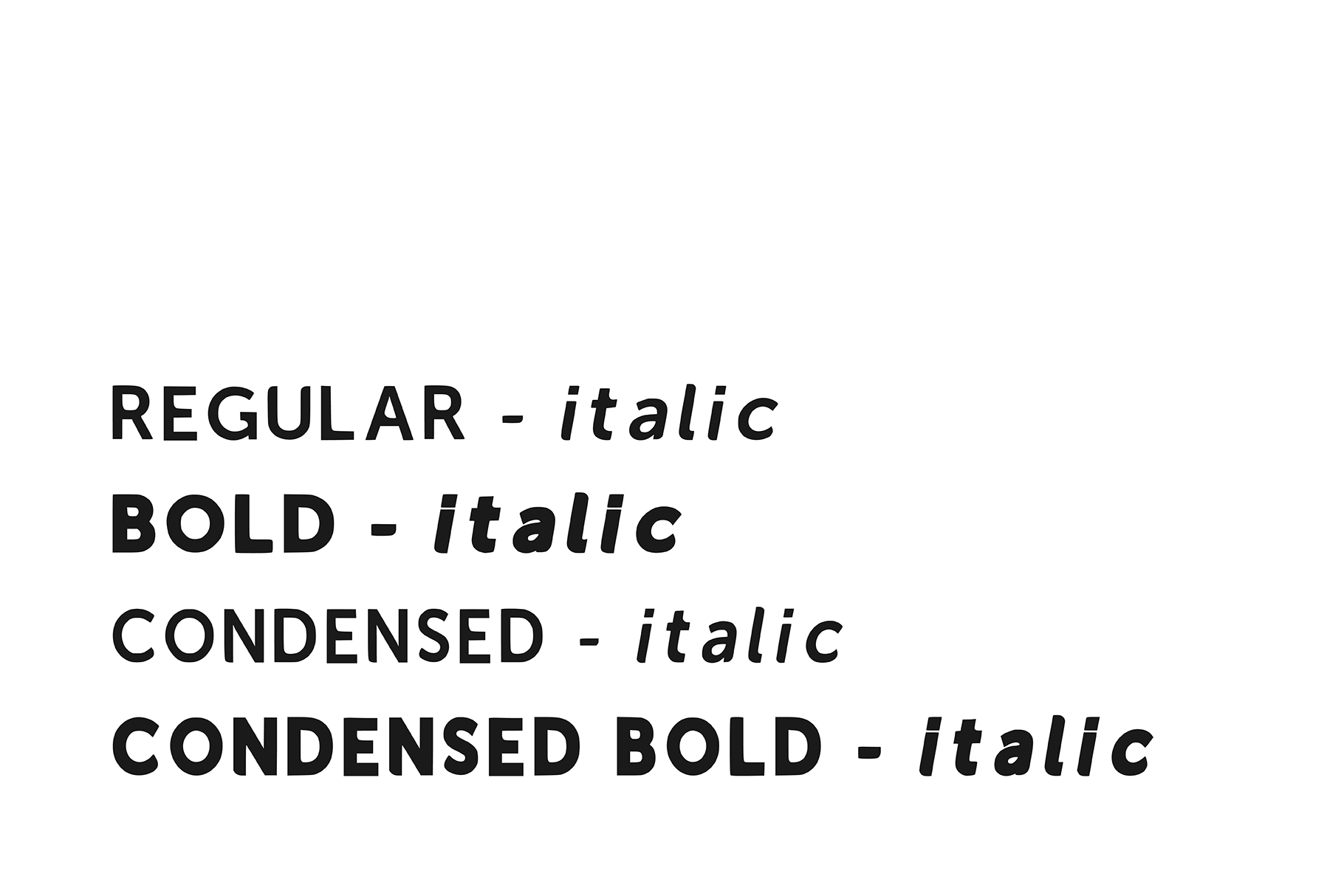
RoundEdge Typeface
Create bold, gorgeous headlines and designs. Contrasting lines and curved terminals give a sleek, safety look to logos, posters, books, advertisements, and more. Create something beautiful today with RoundEdge.